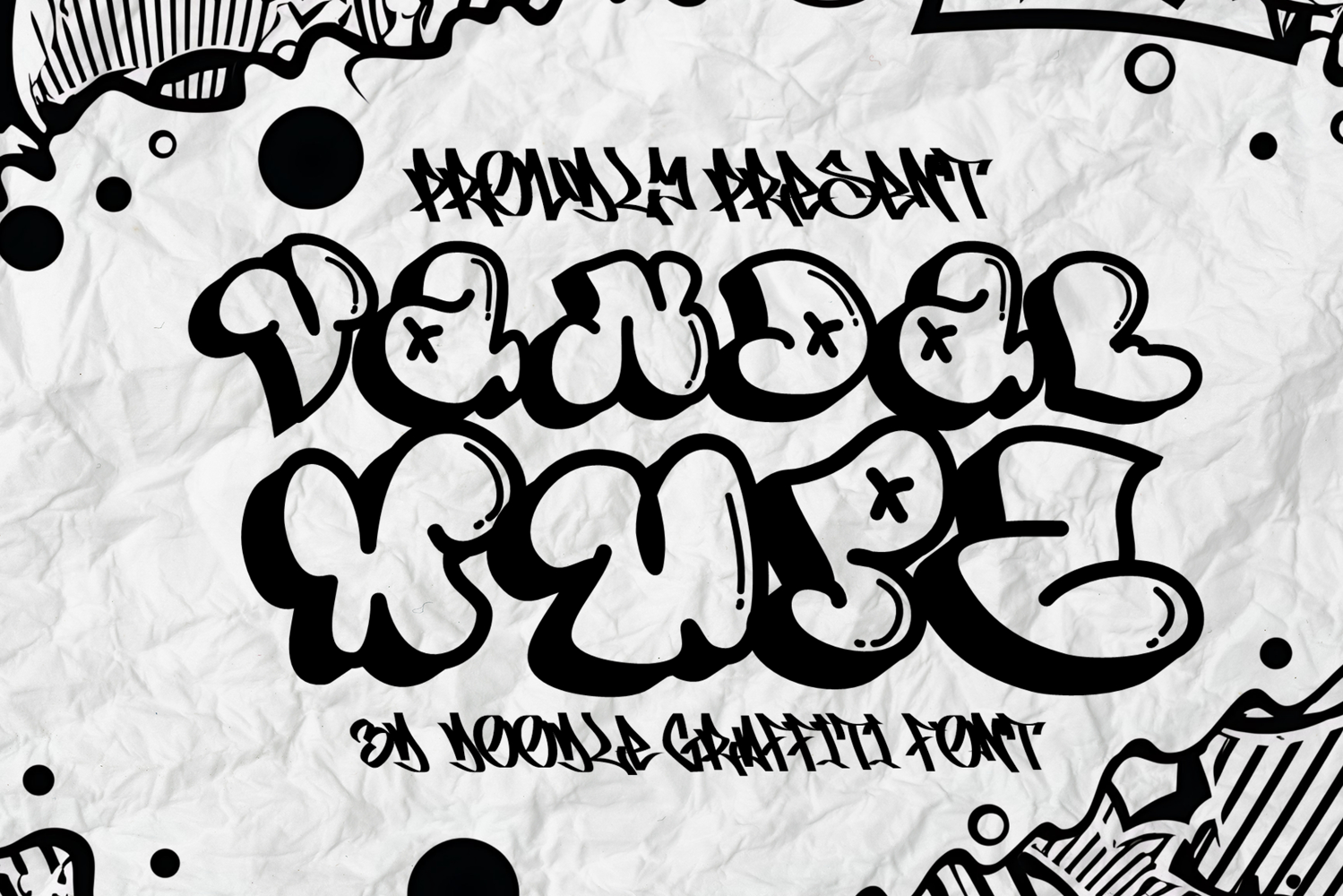
Vandal Wupz - Doodle Graffiti Font
Introducing Vandal Wupz – the ultimate Doodle Graffiti Font that infuses your designs with playful energy and urban edge. This unique font combines the spontaneity of doodles with the rawness of graffiti, making it perfect for projects that need a bold, creative, and eye-catching touch.
🎨 Playful Creativity: Vandal Wupz captures the essence of spontaneous creativity with its quirky and energetic doodle-inspired characters. Each letter is designed to bring a sense of fun and artistic flair, perfect for projects that aim to stand out with a unique personality.
🌆 Urban Edge: Rooted in graffiti culture, Vandal Wupz exudes an authentic urban vibe. Its edgy and raw style makes it ideal for street art branding, music posters, event flyers, and other designs that seek to capture the spirit of the streets.
🖌️ Versatile Use: Whether you're working on digital media or print, Vandal Wupz adapts seamlessly to various applications. From social media graphics and logos to merchandise and album covers, this font adds a dynamic and captivating element to any project.
💥 Bold Statements: Vandal Wupz is designed to make an impact. Its bold and expressive letterforms ensure your message is delivered with a powerful punch, grabbing attention and leaving a lasting impression. Use it for headlines, titles, and other key elements to create striking visuals.
🖋️ Meticulously Crafted: Each character in Vandal Wupz is carefully designed to maintain high readability while showcasing intricate details. The artistic doodles and graffiti elements blend perfectly, offering a font that is both visually appealing and highly functional.
Elevate your designs with Vandal Wupz – the Doodle Graffiti Font that brings together playful creativity and urban grit. Perfect for making bold, unforgettable statements, Vandal Wupz is your go-to font for adding a unique and captivating edge to your projects.